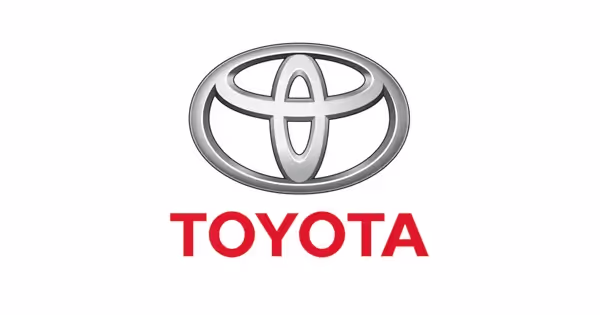
Toyota Logo Font
Avenir
The Toyota logo font is Avenir. The wordmark uses a clean geometric sans serif with balanced proportions and modern letterforms. Avenir gives the brand a professional, reliable, and contemporary appearance that fits its global automotive identity. Toyota Motor Corporation is a Japanese multinational automotive manufacturer headquartered in Toyota, Aichi, Japan. In 2017, Toyota's corporate structure consisted of 364,445 employees worldwide and, as of December 2019, was the tenth-largest company in the world by revenue.